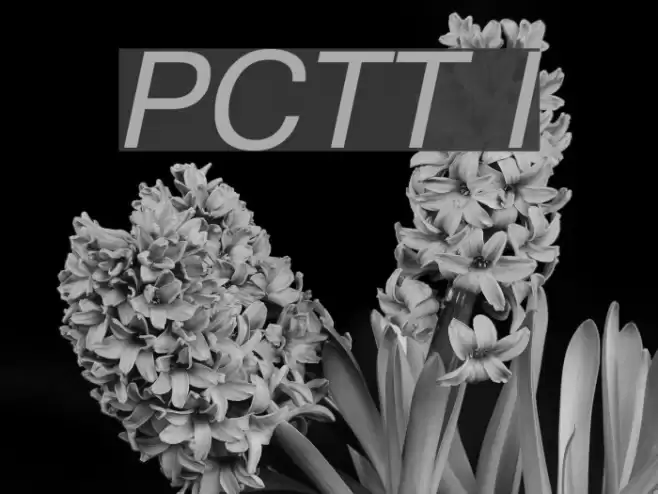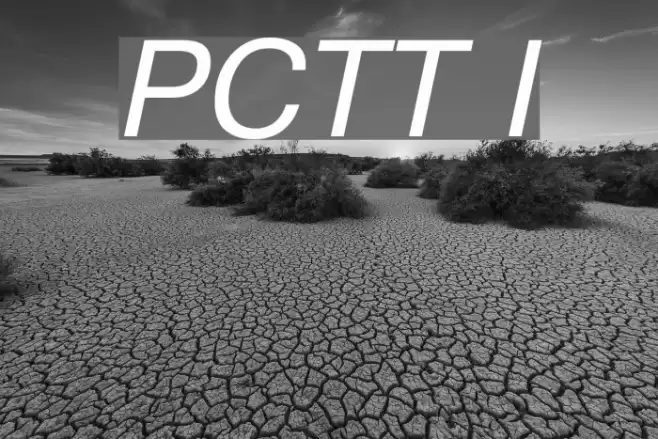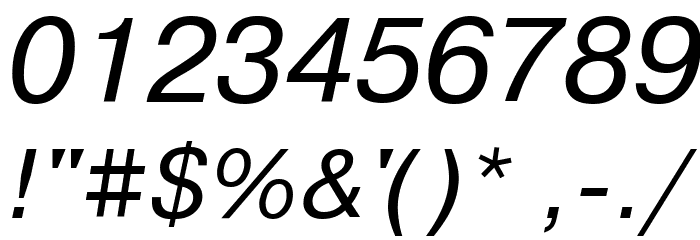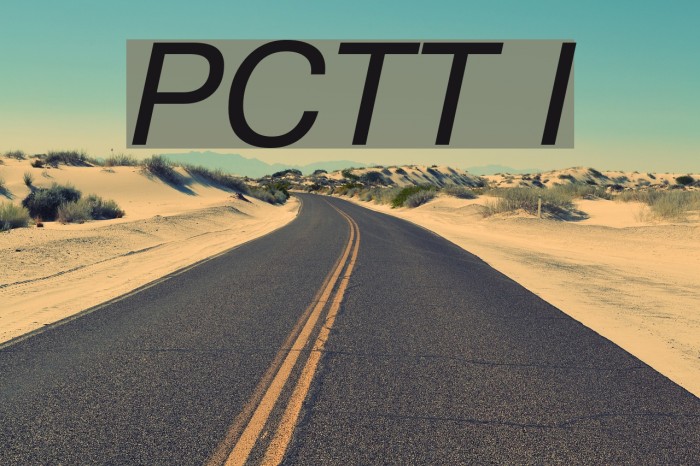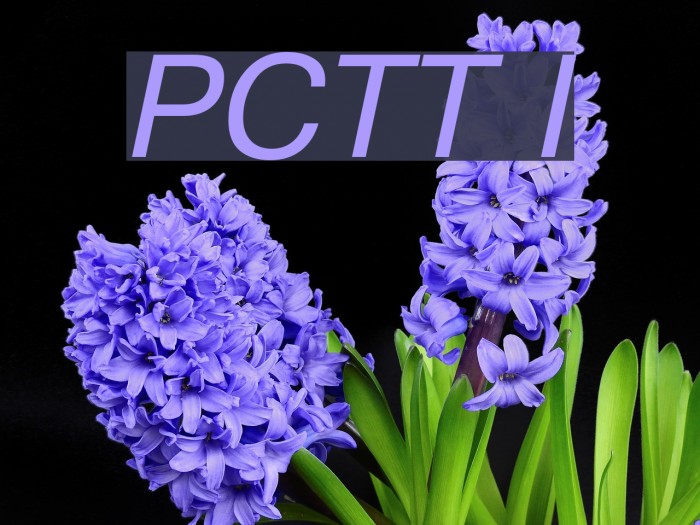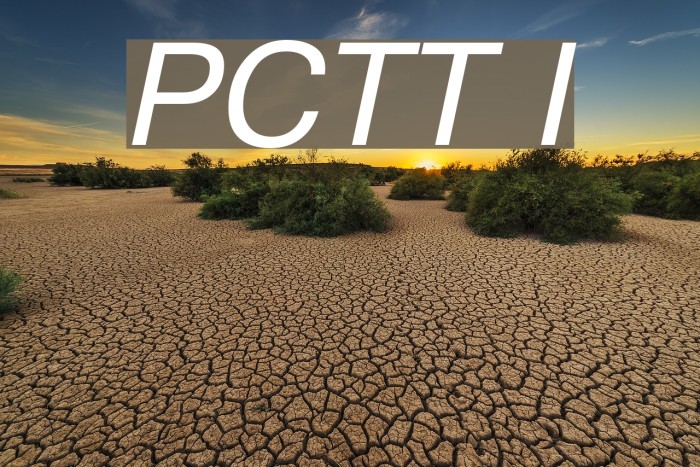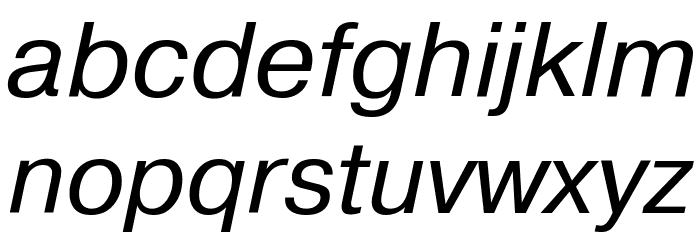
PragmaticaCTT Italic Font
PragmaticaCTT Italic Description
This font features a clean and modern sans-serif style with a slight italic slant, giving it a dynamic and forward-moving appearance. The characters are well-proportioned, with smooth curves and a consistent stroke width that maintains readability across different sizes. The uppercase and lowercase letters are distinct, with a subtle elegance that makes it suitable for both formal and informal contexts. The numerals are clear and easy to read, while the special characters are designed to complement the overall aesthetic. This font's versatility makes it a great choice for a wide range of design projects.
A modern, italic sans-serif font with clean lines and a dynamic appearance from Uncategorized fonts.
- Proposed Projects: Ideal for branding, advertising, editorial design, and digital interfaces.